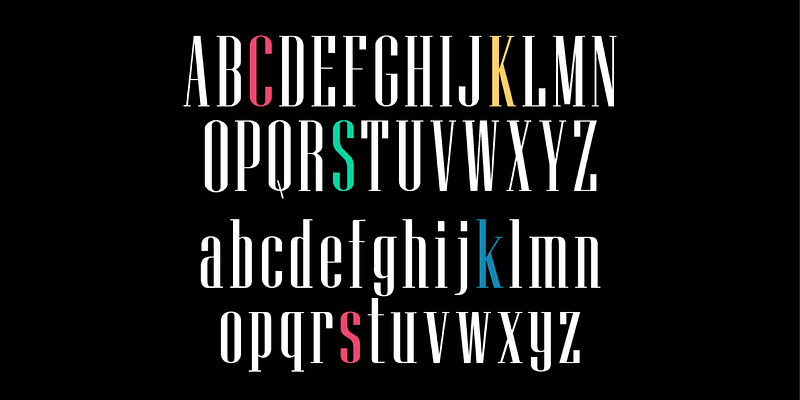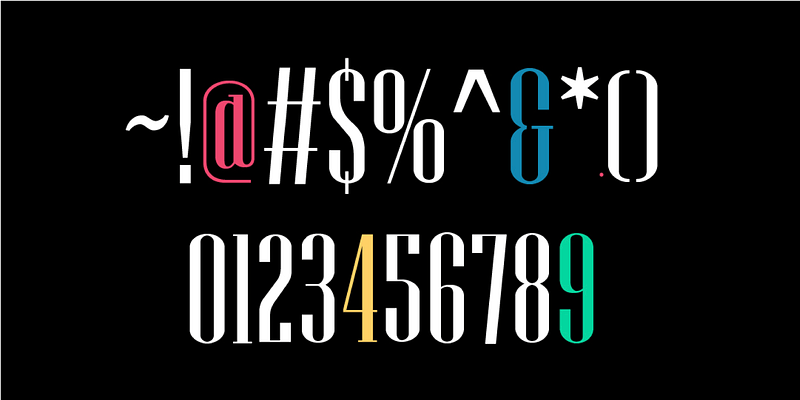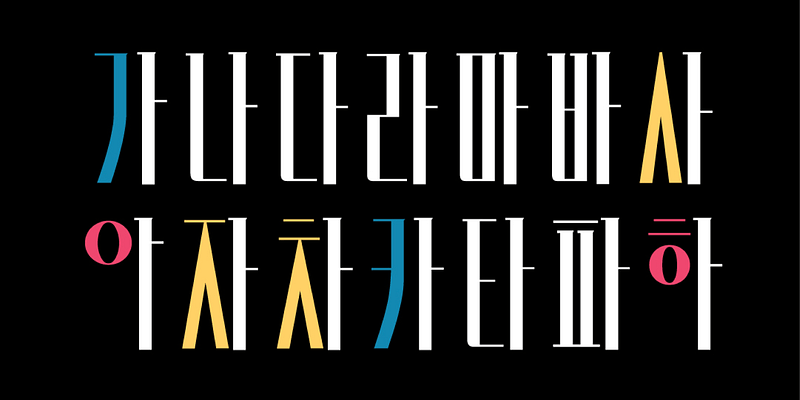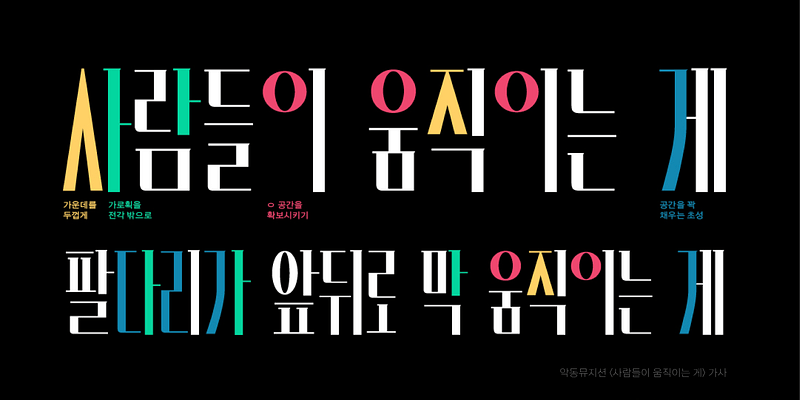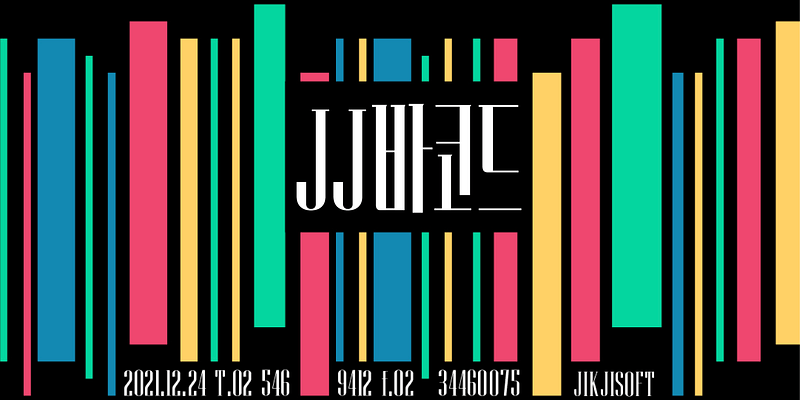
Designed within a square framework, this typeface features tightly packed character designs and extreme stroke contrast, giving it a barcode-like appearance from a distance, which inspired its name. It’s perfect for use as a distinctive headline font, adding a strong personality to your projects!